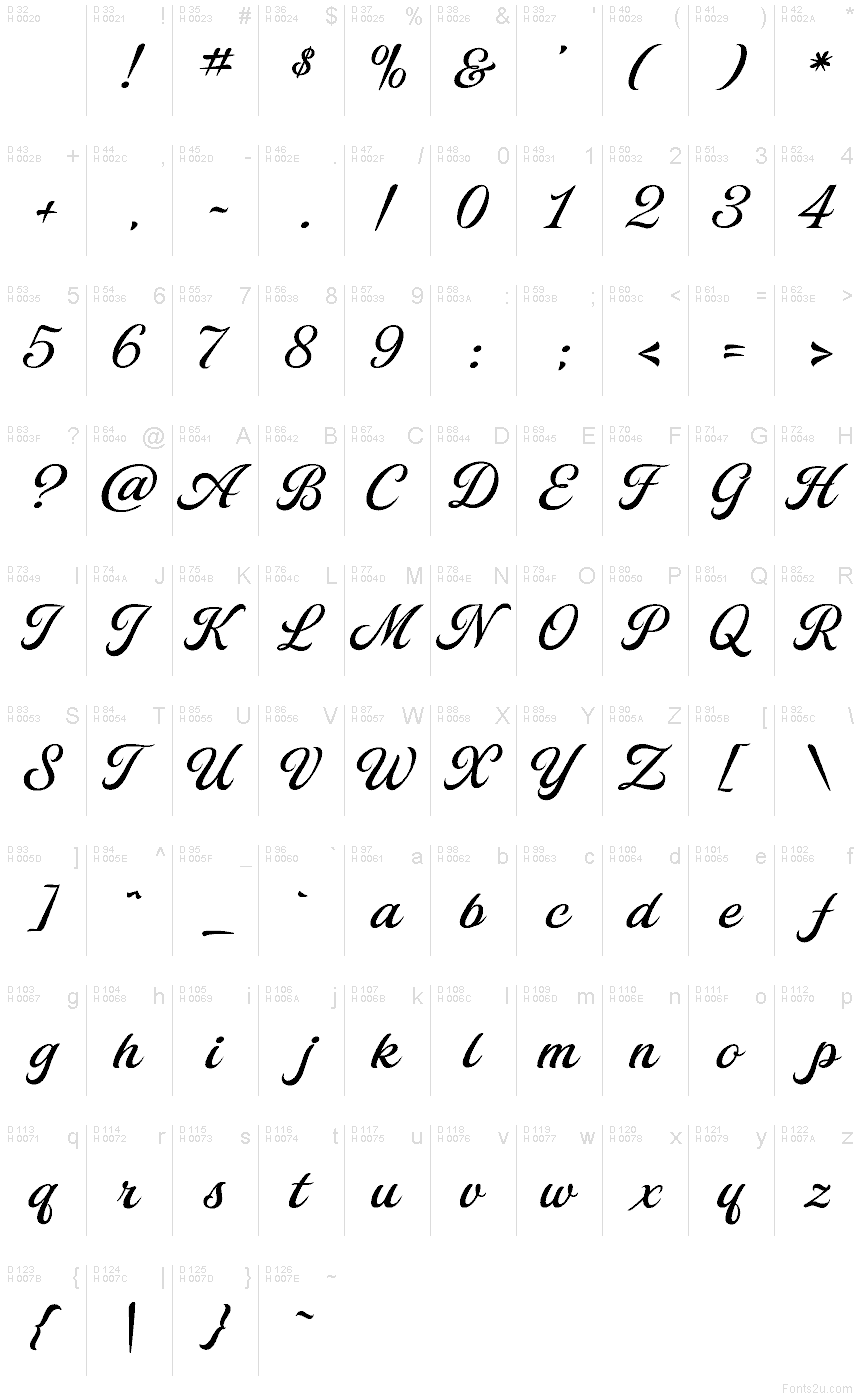
Avenue de Madison
Avenue de Madison font from Cat.B is a free calligraphy font that combines cursive fluidity with classic charm for a sophisticated final look. Elegant loops and curved strokes give this timeless typeface plenty of stylish vibes to spare while the flowing script style it carries makes it exceptionally polished.
Avenue de Madison is available for logos, fashion/beauty projects, event invitations, social media posts, inspirational quotes, brochures, packaging stickers, posters, greeting cards, brand development ideas and other creative options.